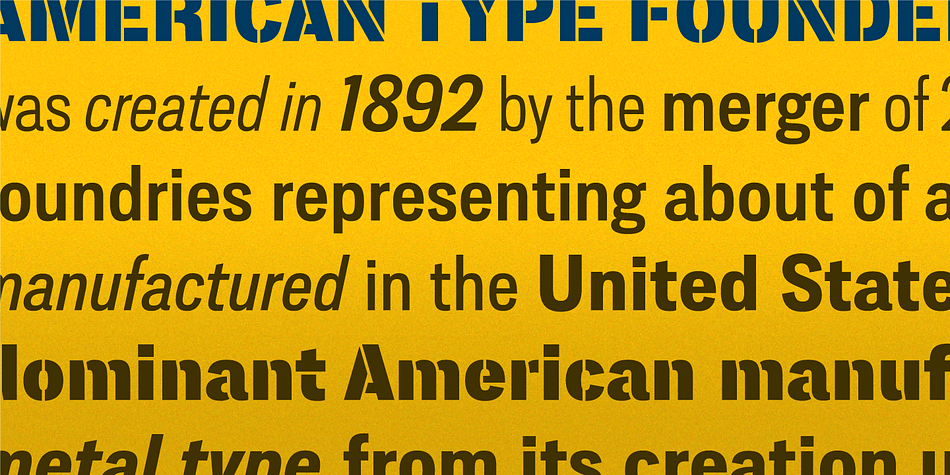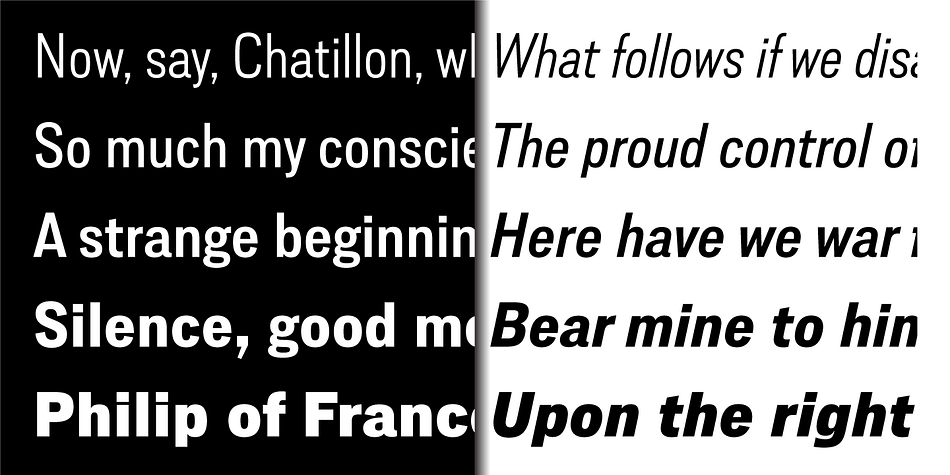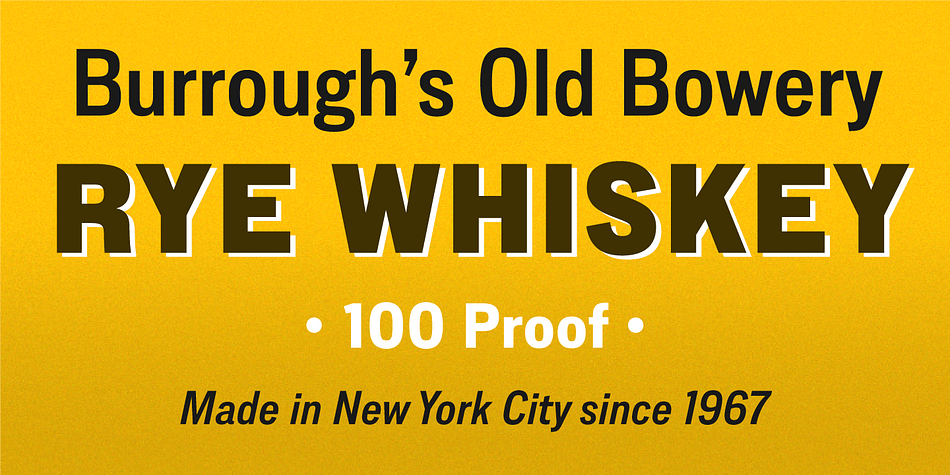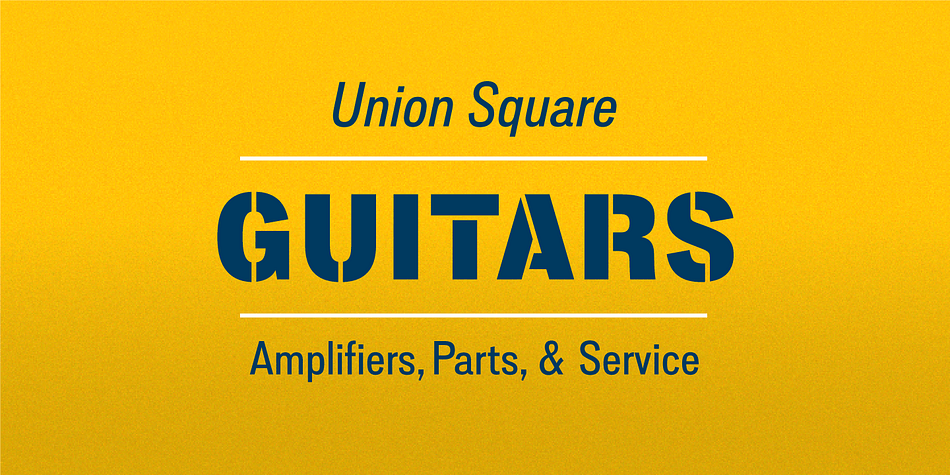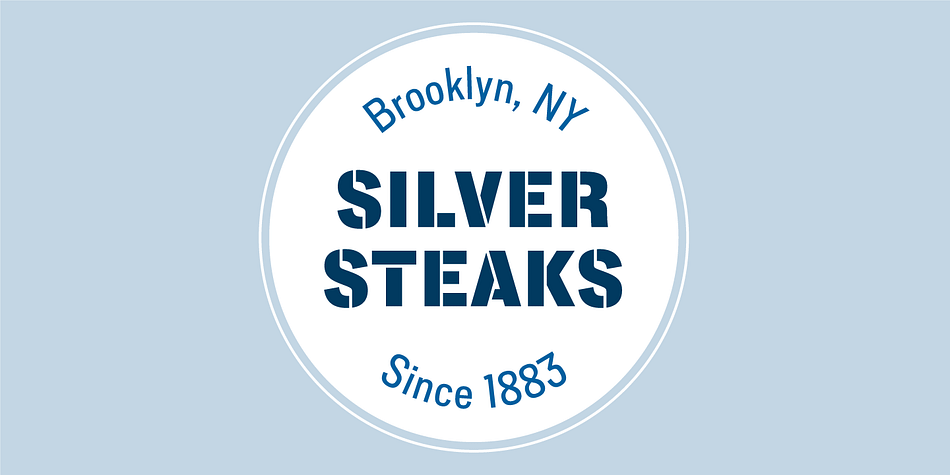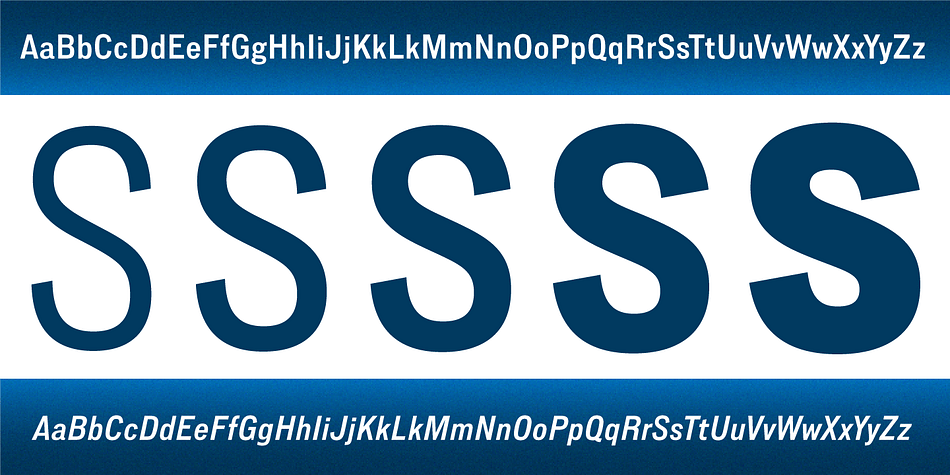
Lorimer No 2
Lorimer No 2 is a sans family designed for display settings. Narrow letters, tight spacing, and a low x-height make Lorimer No. 2 better suited to display settings than fonts adjusted to work in text settings. Packaging, identities, and headlines are ideal applications for Lorimer No 2.
Designer James Puckett developed Lorimer No. 2 as the result of researching nineteenth century memorial inscriptions. A condensed sans serif inscription on a Manhattan burial vault prompted research and experimentation. Research turned up similar letters in American wood type, memorials in an Indian cathedral, and enameled tiles in the New York City subway. Puckett developed his experiments into a type family with two widths, five weights, and matching italics.